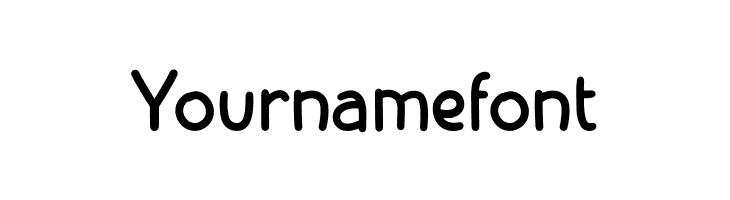
A playful, rounded font with smooth curves and a friendly appearance.
A playful, handwritten font with rounded edges and a casual, friendly appearance.
A playful, rounded font with smooth curves and a friendly appearance.
A playful, bold, and decorative font with unique uppercase letter designs.